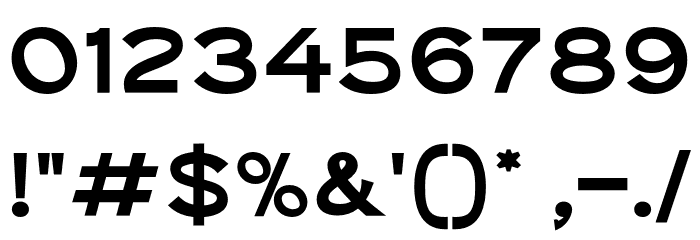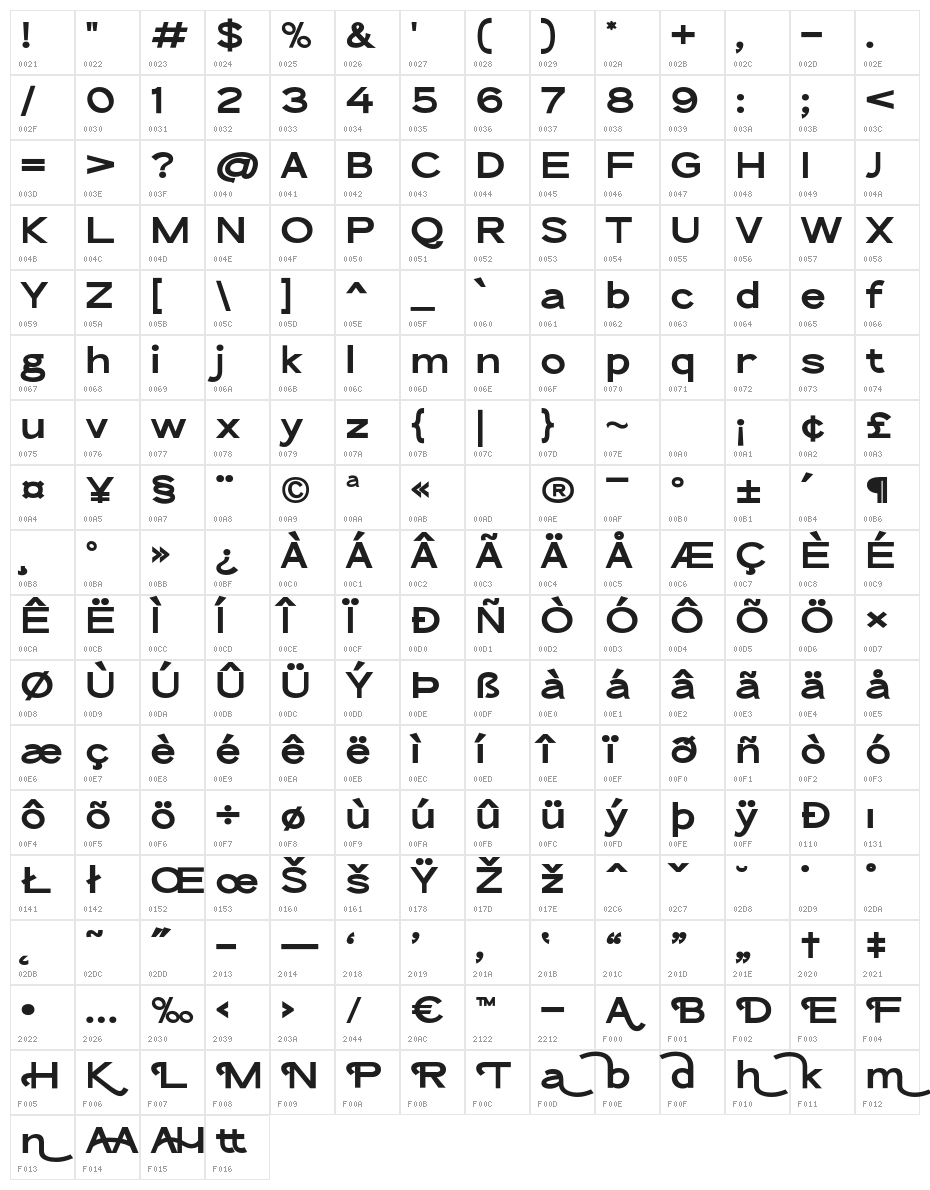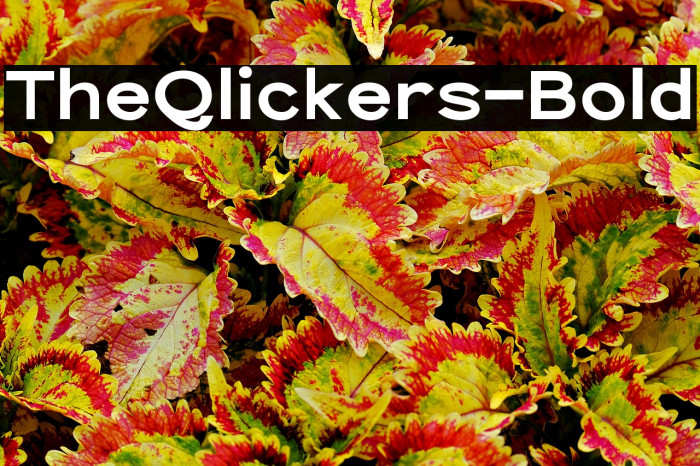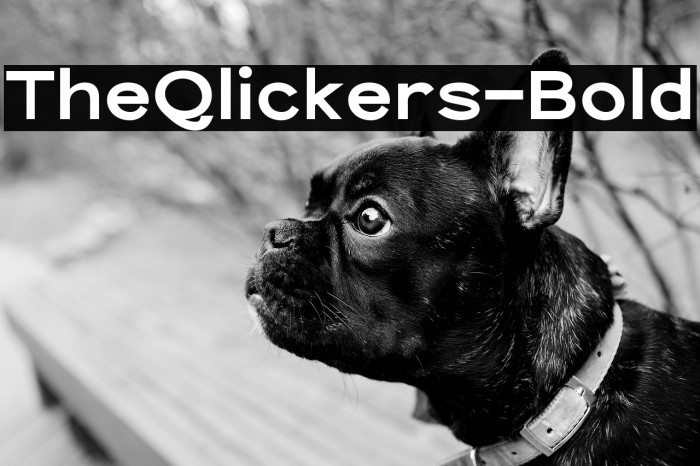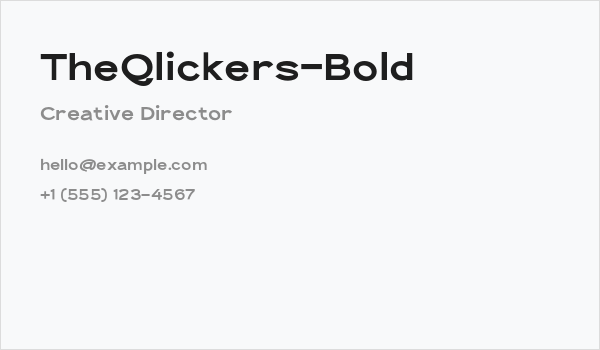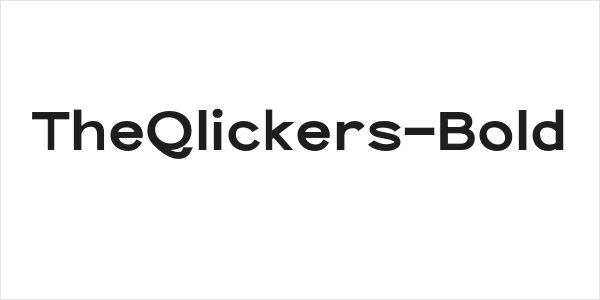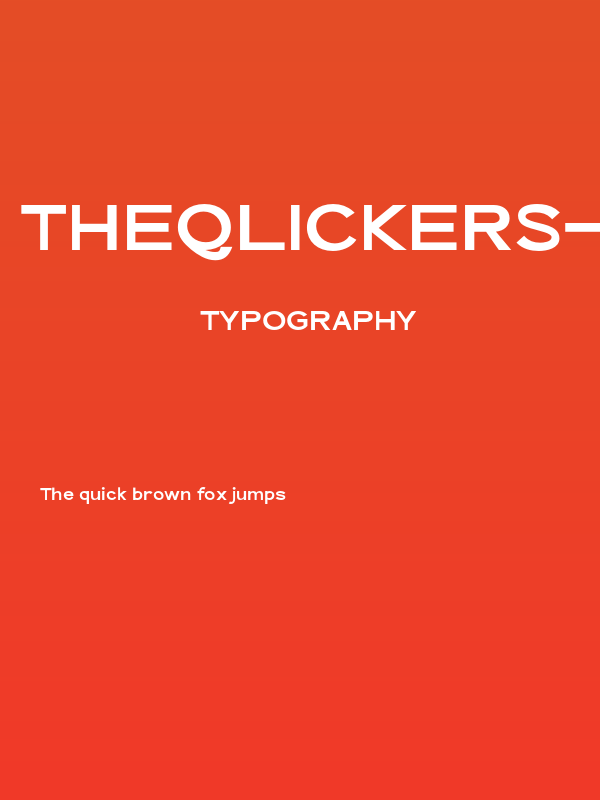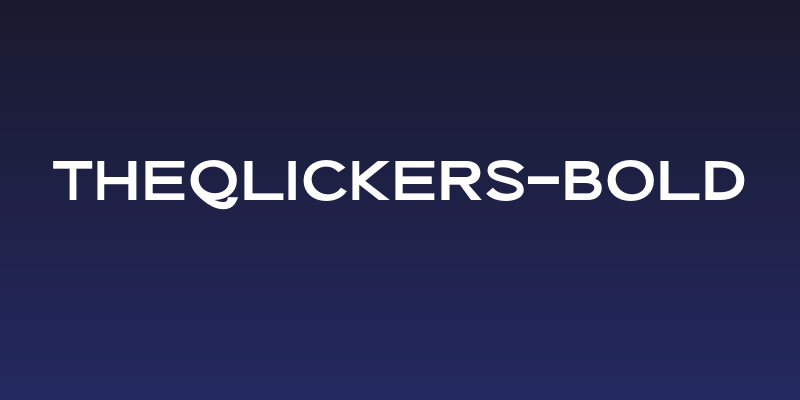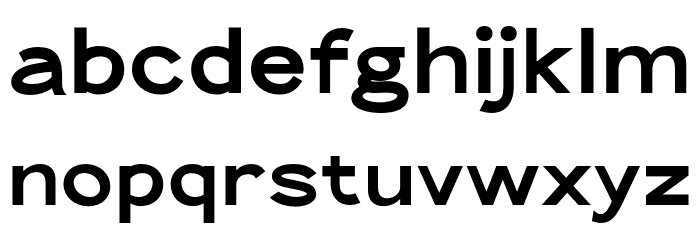
TheQlickers-Bold Font
TheQlickers-Bold Description
This font features a bold and modern sans-serif style with clean, geometric lines and a uniform stroke width. The uppercase and lowercase letters are well-proportioned, offering a harmonious and balanced appearance. The numerals are clear and easily distinguishable, while the special characters are designed to complement the overall aesthetic. The font's simplicity and clarity make it highly legible, suitable for a variety of design applications.
| Use Case | Headlines, Logos, Digital interfaces |
| Proposed Projects | Ideal for branding, advertising, headlines, and digital interfaces where clarity and impact are essential. |